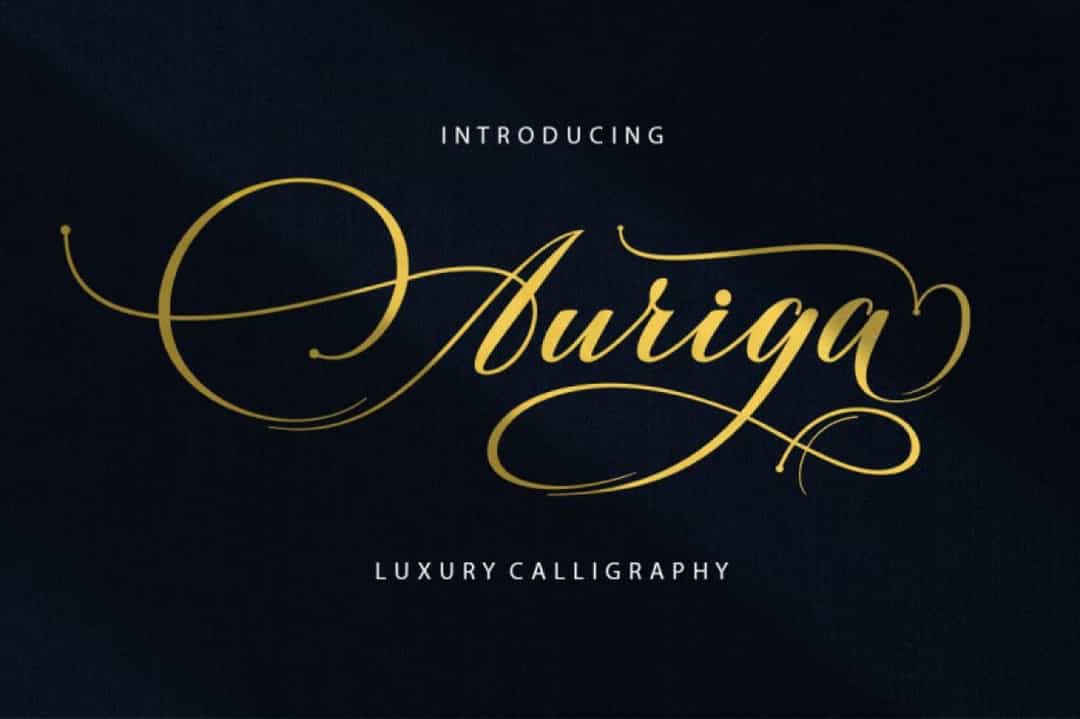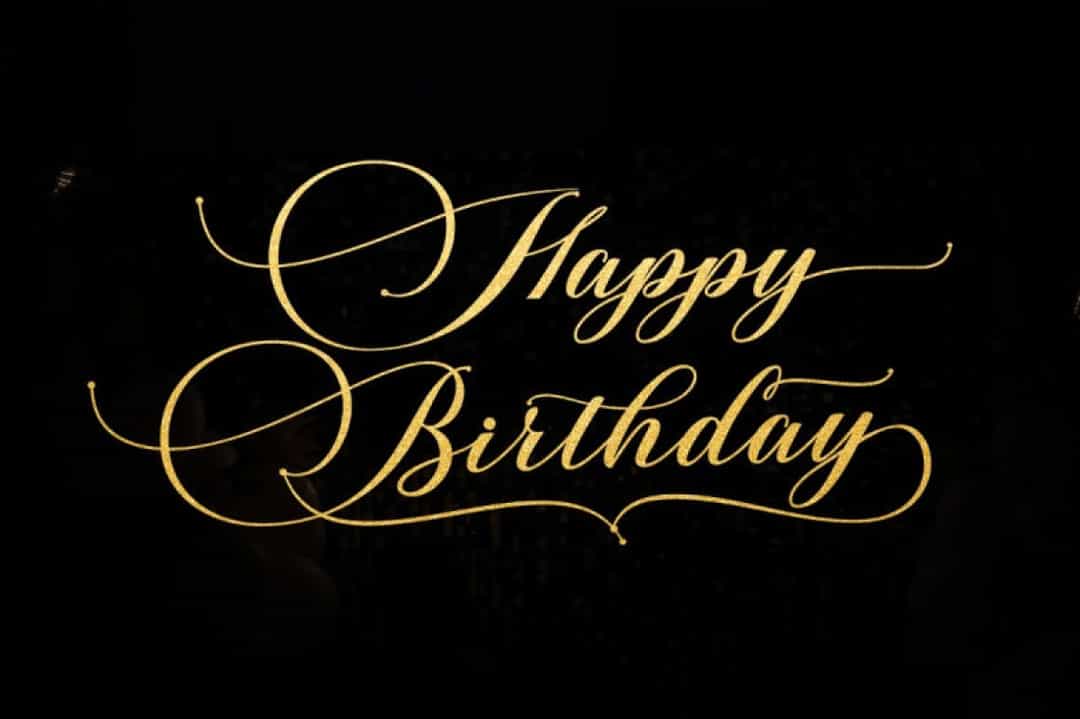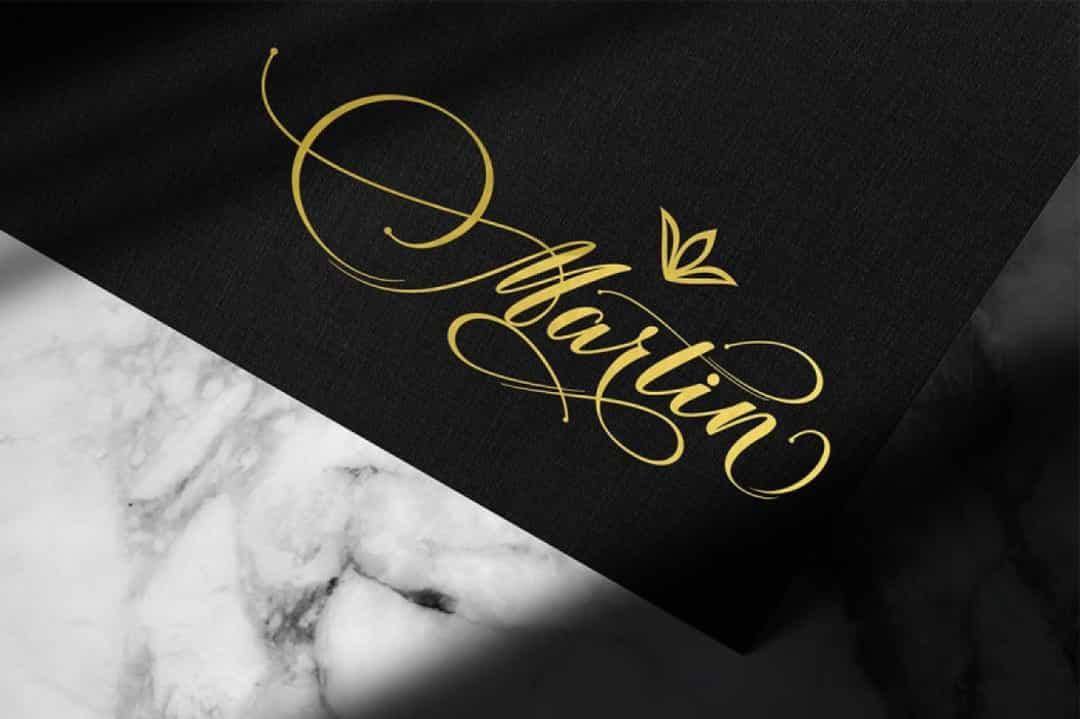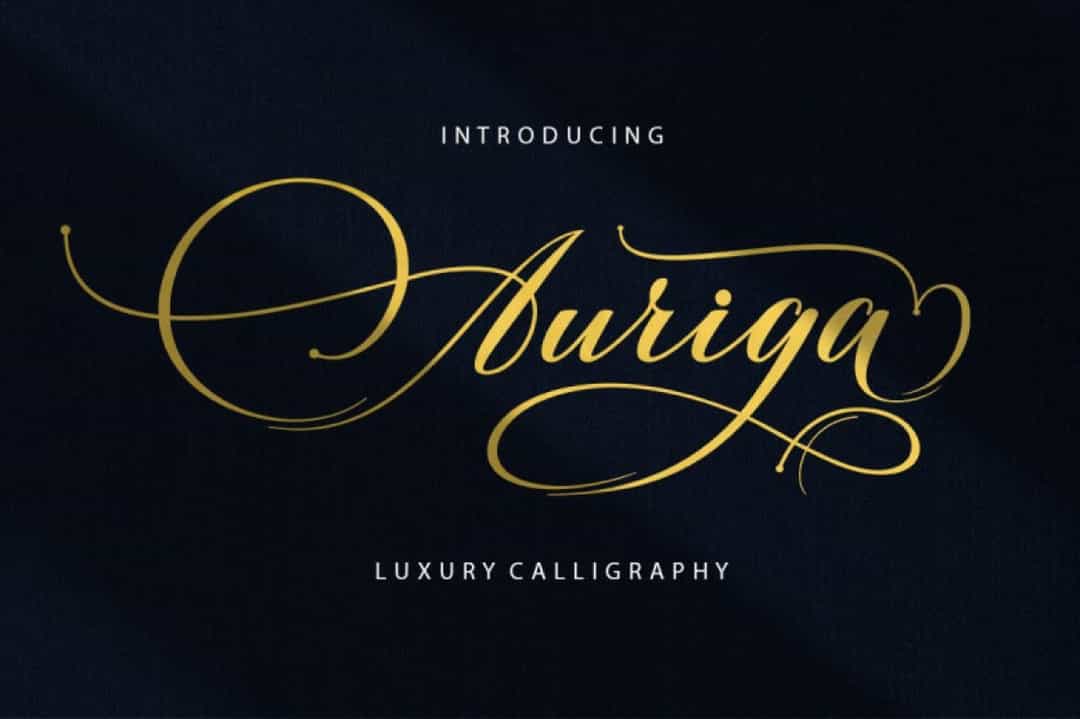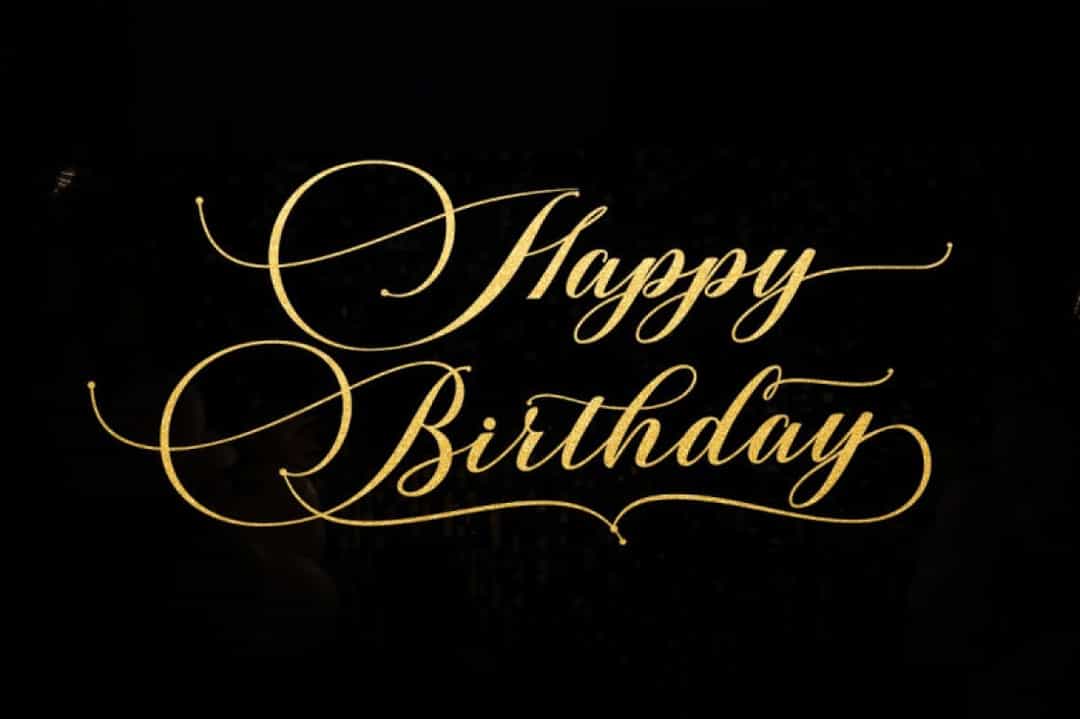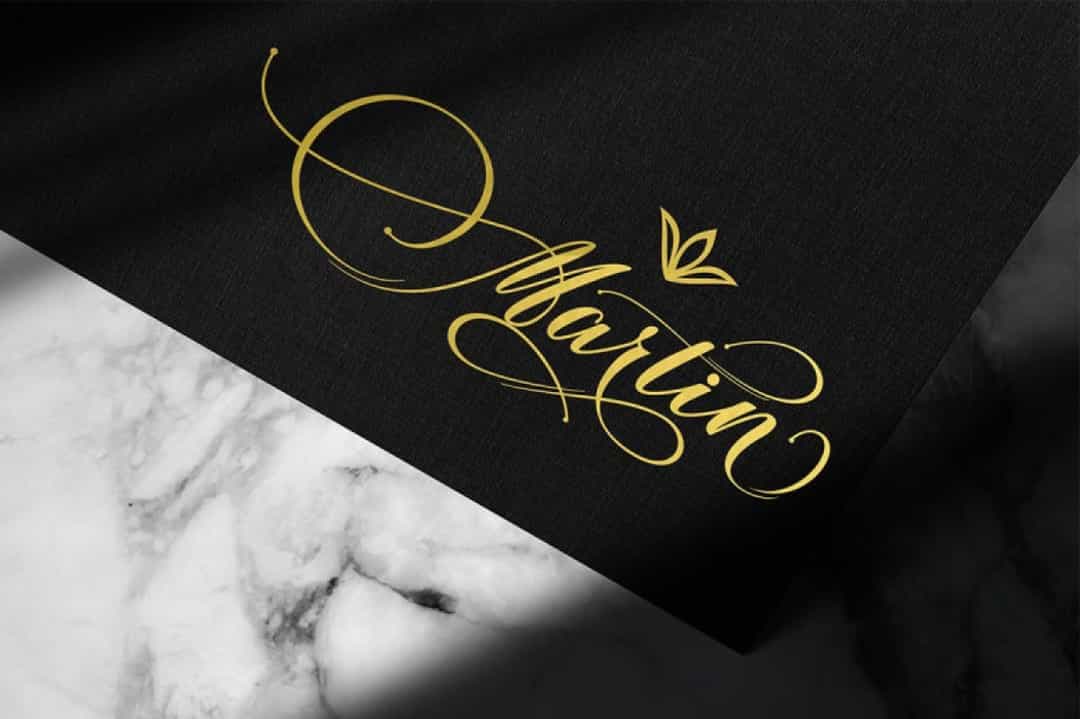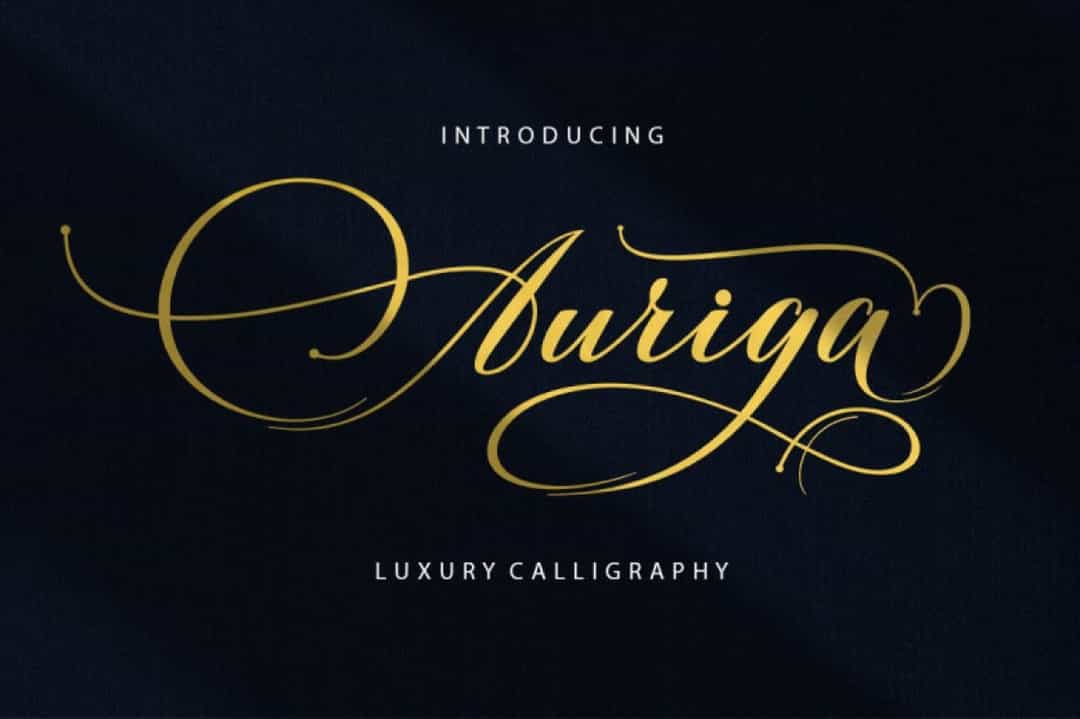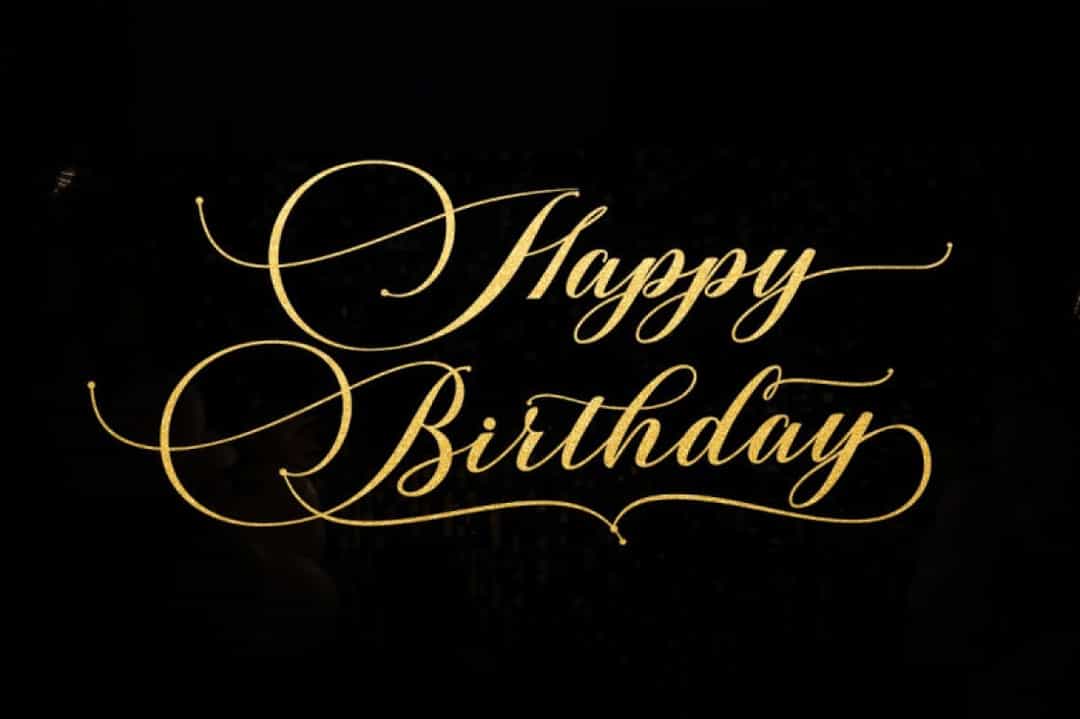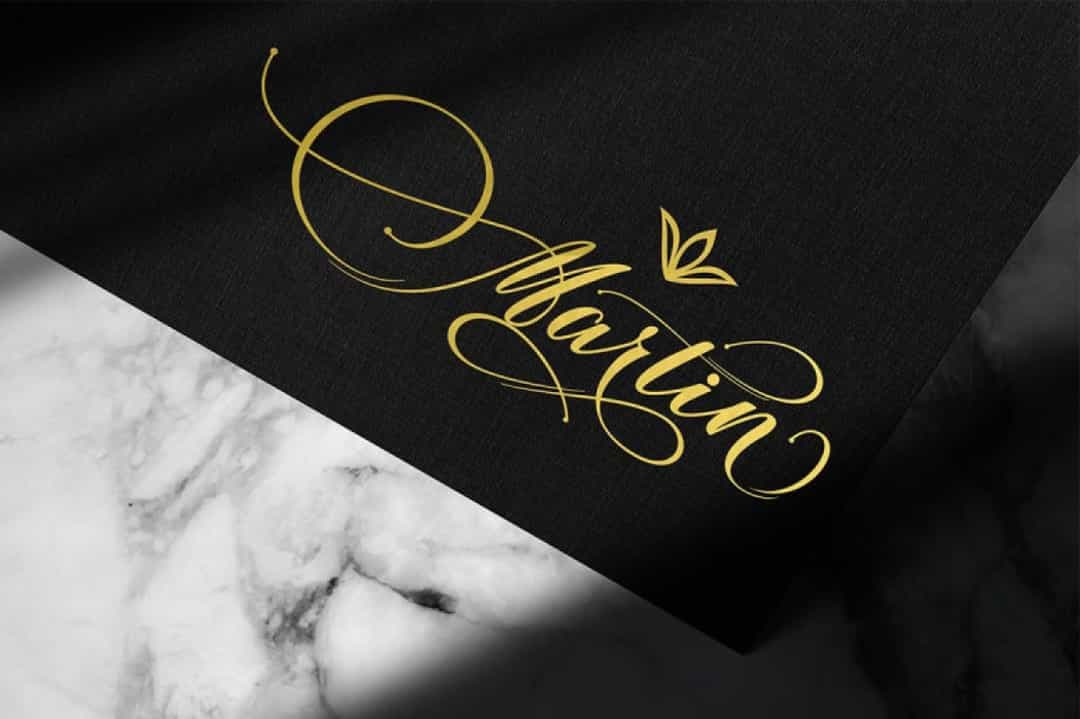
Auriga is an elegant calligraphic font with graceful curves that radiate timeless sophistication. With elegant lines and flowing strokes, Auriga lends itself to formal invitations, documents or any designs needing the classic aesthetic.